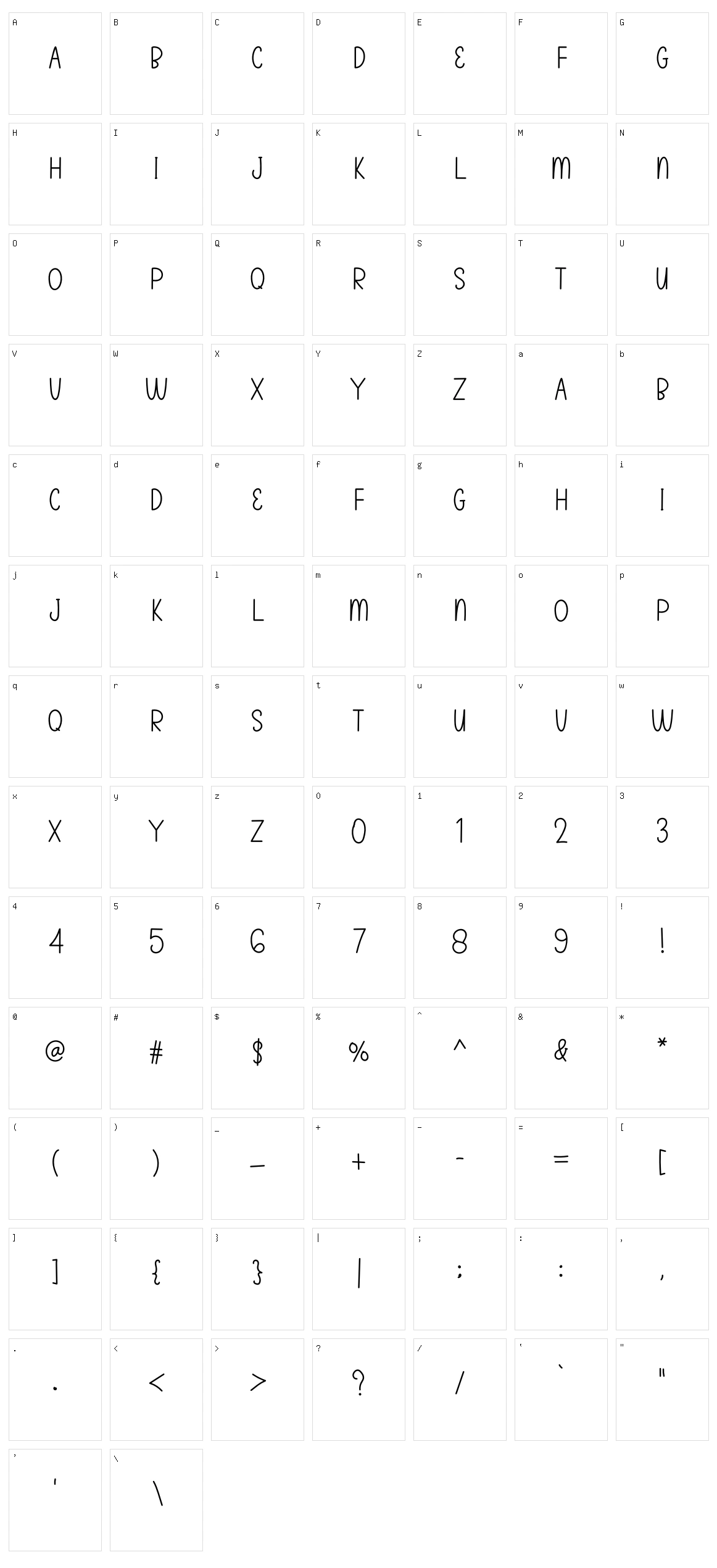
The free font Happy Poppy is carefully designed by Belina Studio, showcasing a thoughtful balance of creativity and usability and falls under the Script font style. When you download the ZIP file, it contains only 35.36 KB of font files, making it lightweight and quick to download. Please review the license details below to understand permitted usage and distribution rights. If license information is not available, we recommend using this font for personal projects only or contacting the author directly for commercial usage permissions.